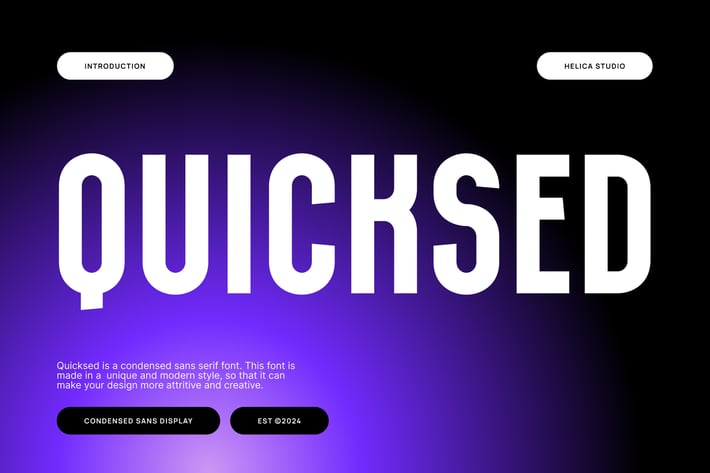
Quicksed Condensed Sans Display Font
Quicksed Condensed Sans Display Font typeface is perfect for crafting elegant quotes, stunning logos, captivating magazine headers, and so much more.